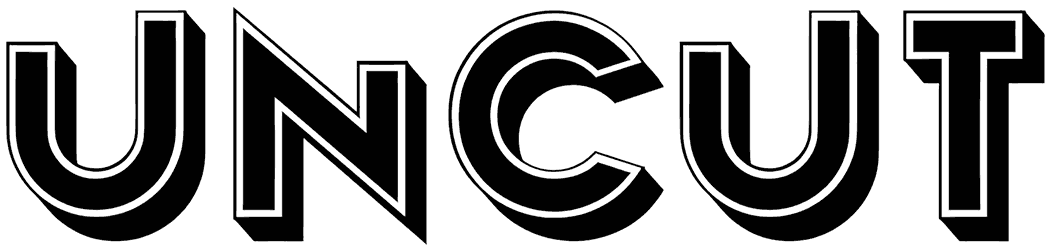
Uncut Font
Its strong appearance lets us use it as a shadow font in sci-fi magazines, auto ads, sports banners, or even in the title of vintage movies. Uncut, with two various styles, can add flexibility to your projects and also bring them to light.
This techno font doesn’t spare any effort to make you stand out despite not having numbers or lowercase letters. If you feed on fantastic 3D fonts with incredible characters, visit our website.